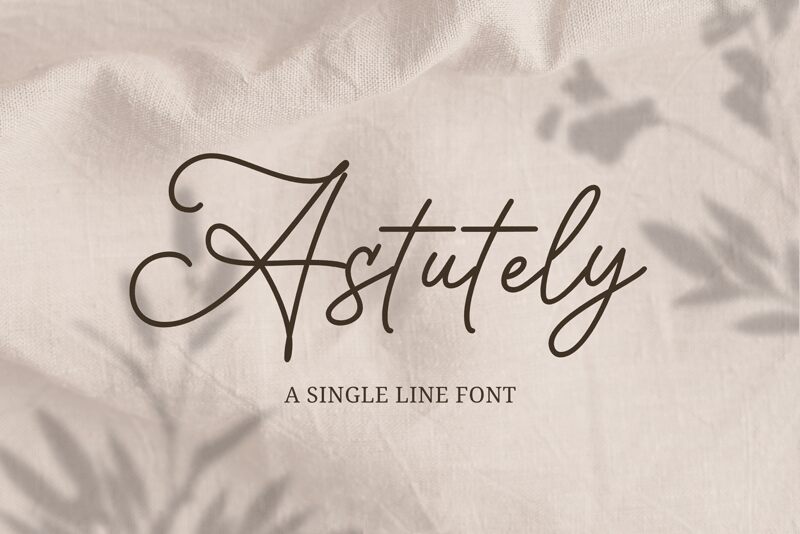
Astutely Regular
Astutely, a captivating handwritten font by Niskala Huruf, exudes a charming vintage touch. Its semi-light weight and delicate strokes make it ideal for various creative projects.
This font's elegant yet playful style lends itself well to invitations, greeting cards, and personalized stationery. It also adds character to blog headers or social media graphics for lifestyle or fashion influencers. With its single-line design, Astutely effortlessly brings an artisanal feel to logos and product packaging in the home decor or artisanal food industries.
Embrace the allure of Astutely and infuse your projects with nostalgic sophistication.